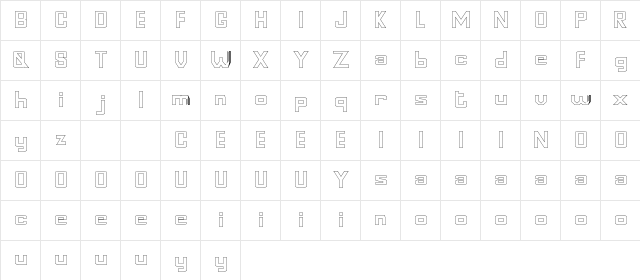
Goldin Finance DEMO Storoke Regular
| Foundry | Edric Sudio |
| Designer | M Nouval |
Design Context for Goldin Finance DEMO Storoke Typeface
Goldin Finance DEMO Storoke is a composed and adaptable typeface that performs quietly and consistently across a wide range of design contexts.